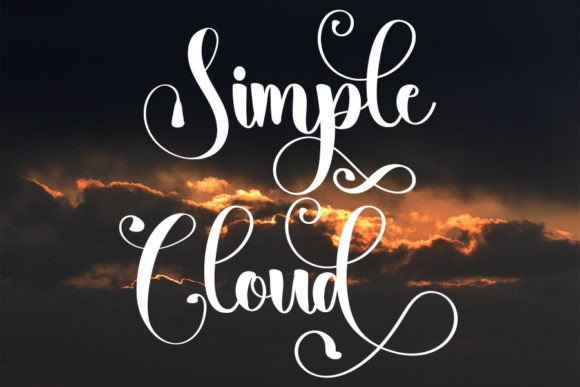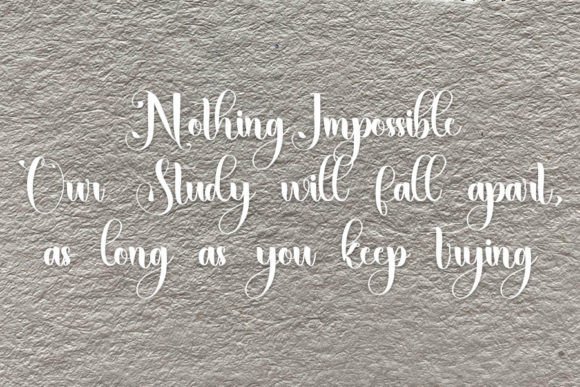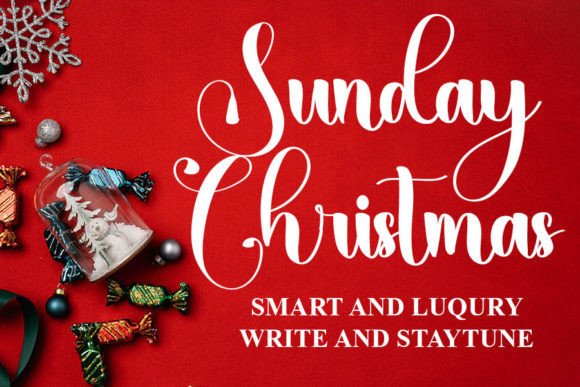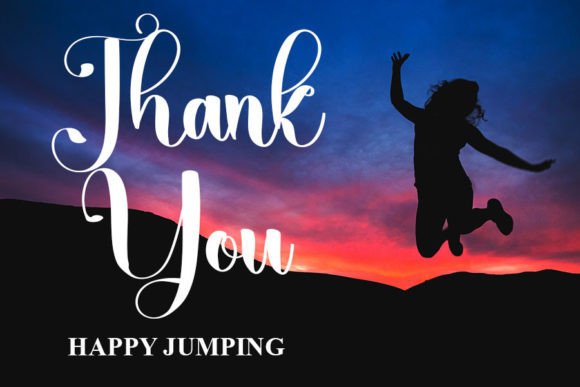
Simple Cloud Font
About Simple Cloud Font
Introducing the Simple Cloud Font download, a stylish handwritten script that blends timeless calligraphy with a modern and contemporary vibe. With its impeccable form and graceful flow, this typeface was designed to enhance the elegance and visual appeal of any creative project.
Crafted with balance and detail, Simple Cloud brings sophistication and warmth to your typography. It’s perfect for designers looking to add a personal, handwritten feel while maintaining clarity and elegance.
Where to Use Simple Cloud Font
This beautifully designed script font is highly versatile, making it ideal for a wide range of design projects. Whether you’re working on personal or commercial tasks, Simple Cloud adds charm and style effortlessly.
Best suited for:
• Wedding invitations and stationery
• Branding and logo design
• Fashion and beauty packaging
• Instagram posts and quotes
• Blog headers and YouTube thumbnails
• Elegant greeting cards and thank-you notes
• Craft projects and printable downloads
From high-end editorial layouts to cozy product labels, Simple Cloud Font download makes every design feel more intentional and sophisticated.
Why Choose Simple Cloud?
The hand-lettered feel of this creates a human connection with your audience, while its neat finish makes it for professional use. It’s that rare font that manages to feel both casual and — a true asset in any designer’s toolkit.
Simple Cloud’s modern and heritage make it stand out, helping your text deliver not just a message, but a mood.